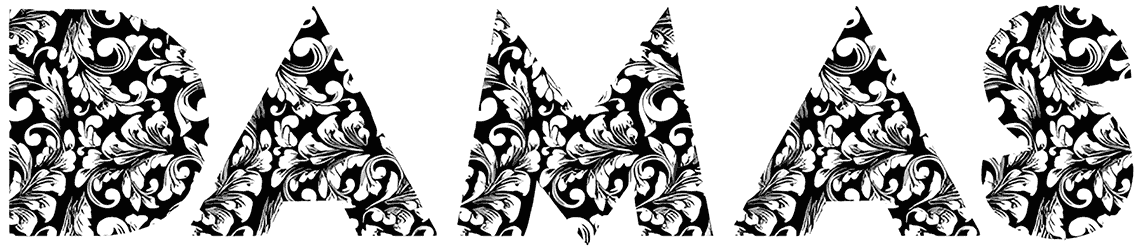
Damas Font
Do you want to make your audience involved with your design? So you’d better use our ornate font, Damas, to bring a floral pattern to the scene. This floral font comes with two sets of uppercase letters, one is decorated with flowers and greenery, which gives off a holiday flourish feel, and the other has a simple, solid feature.
It doesn’t support lowercase letters, numbers, and most punctuation. It will be perfect for invitation cards, gifts, lettering, book covers, and posters.
Two fonts!